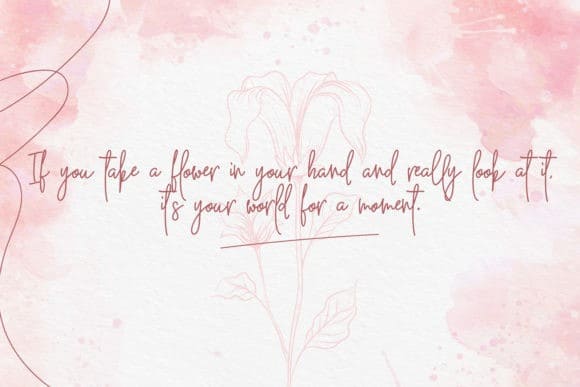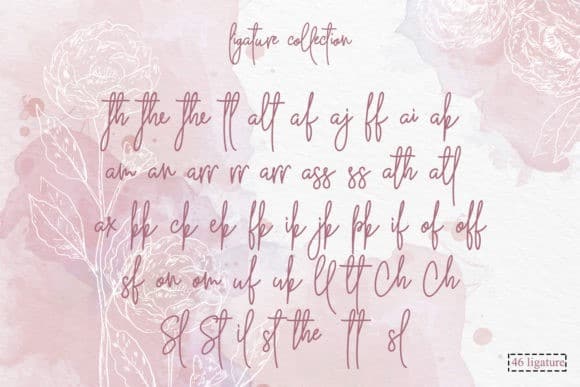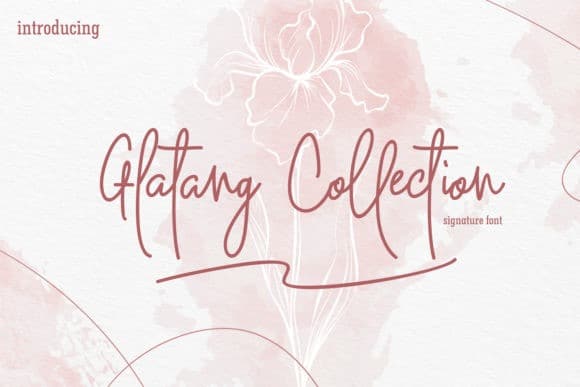
Glatang Collection Signature Font
Say hello to Glatang Collection Signature Font. It’s a magical handwritten font carefully created with a touch of elegance. This is a beautiful combination of timeless elegance and authentic calligraphy. It features an incredibly classic style, while still keeping a friendly feel! It’s designed and shared by BELOVE STUDIO. It’s inspired by classic typography and brings its own unique style to any design project. It will elevate a wide range of design projects to the highest level, be it branding, headings, wedding designs, invitations, signatures, logos, labels, and much more!